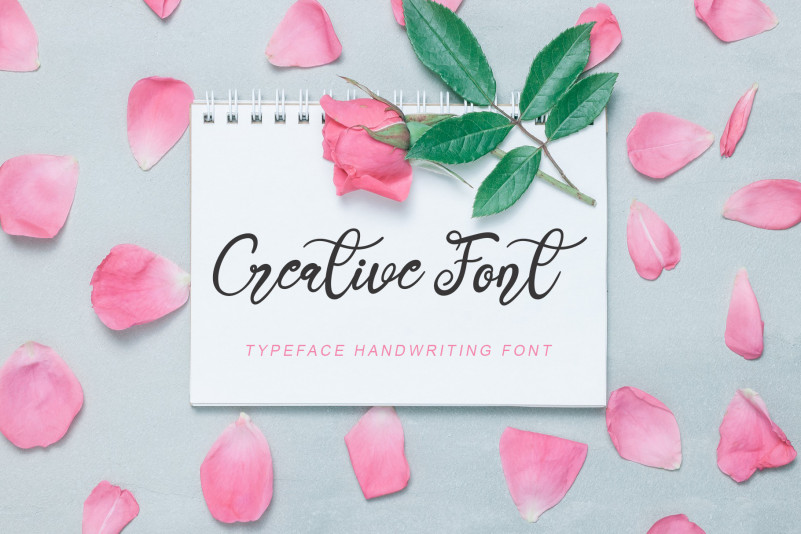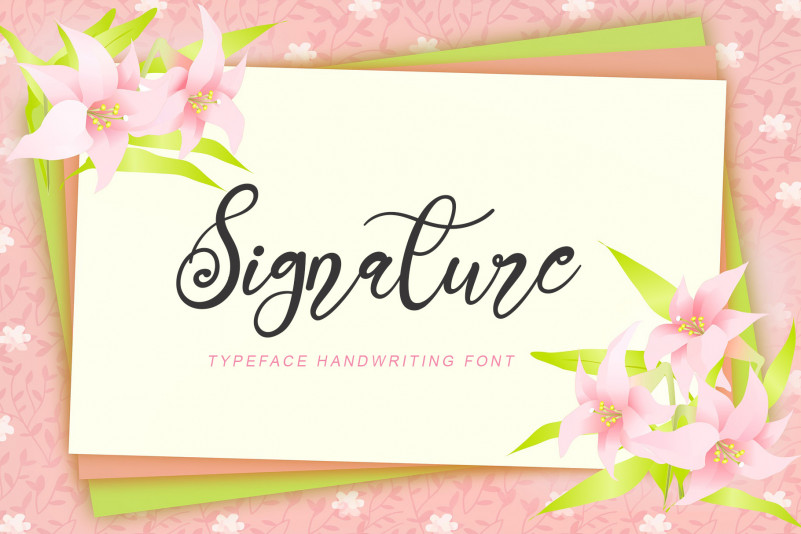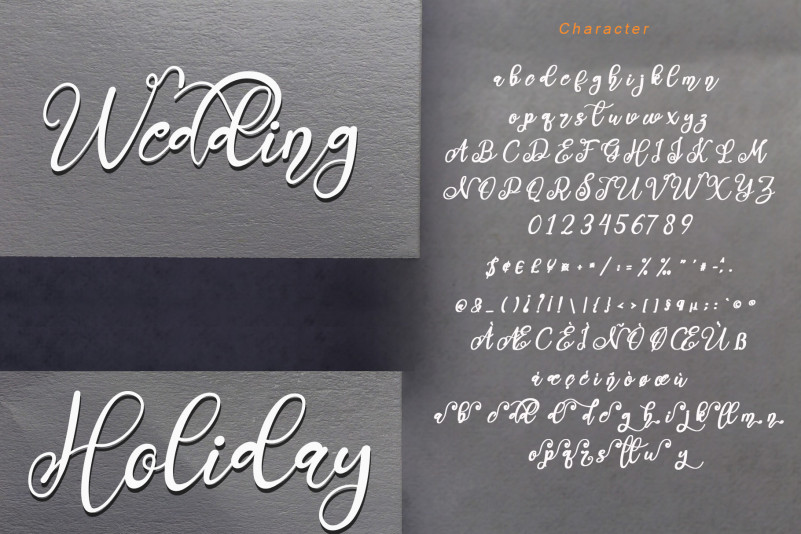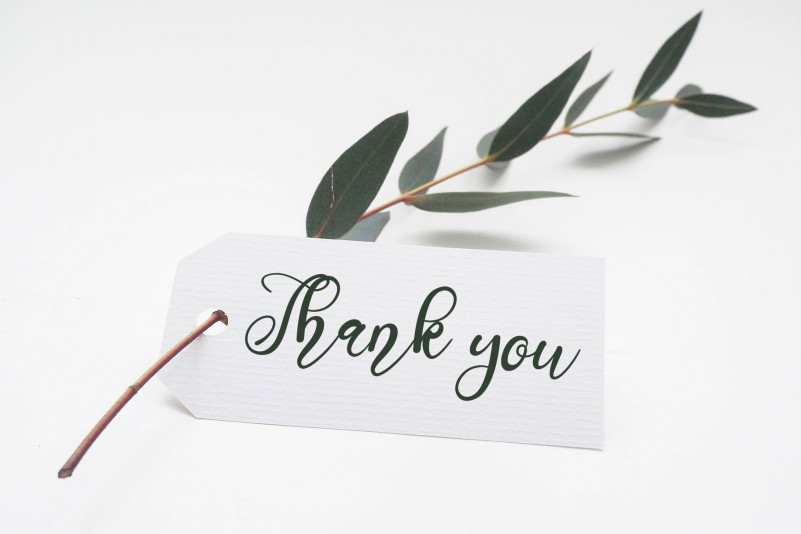
Saturday Night Font
Saturday Night Calligraphy Font
This is an exquisite, lovely and flowing handwritten font. It maintains its classy calligraphic influences while feeling contemporary and fresh. Fall in love with this font and bring your projects to the highest levels!